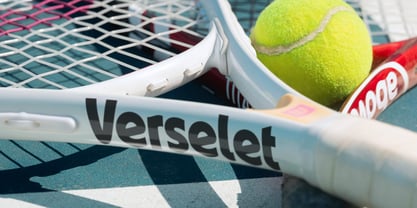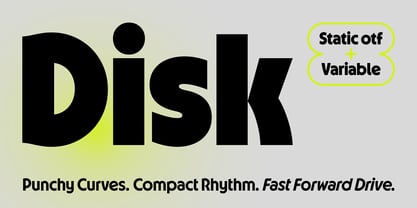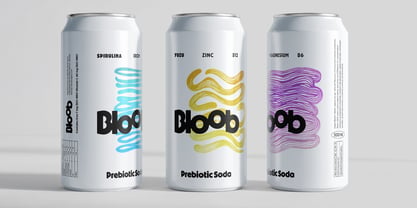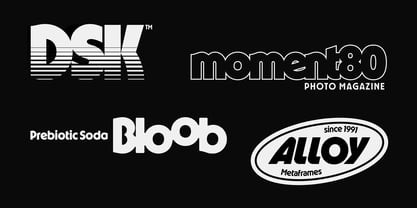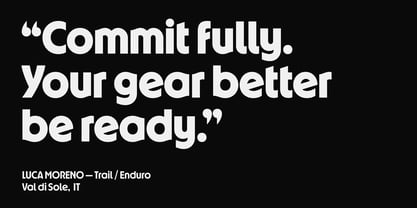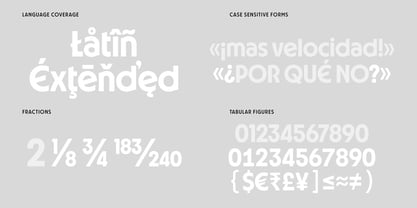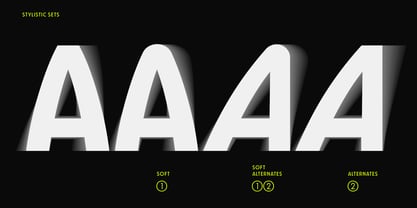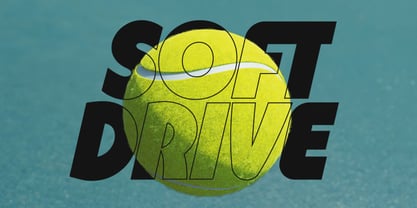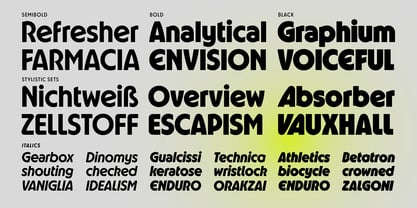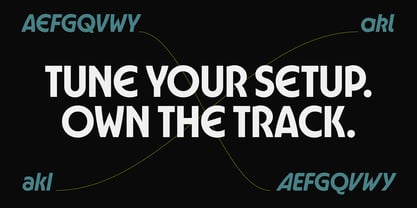
Disk
Die Schriftfamilie Disk wurde von Roland Hörmann entworfen und von phospho veröffentlicht. Disk enthält 7 Stile und Familienpaketoptionen.
Disk is a geometric sans-serif with a distinct display character. Wide proportions, tight spacing, a large x-height, and even stroke weight create dense, stable word shapes with strong visual presence — ideal for headlines, branding, and applications requiring typographic density and visual momentum. Curved diagonals and optional soft corners give the typeface a sporty, 80s/90s-tech-inflected tone, with echoes of the pop and brand culture of the early digital era.
Disk is extended by the pared-down subfamily Disk Format, which shares the same geometric foundation in a more restrained, text-oriented design.
Located in a central district of Vienna, Austria, Roland Hörmann runs phospho; a studio that specializes in both graphic and type design. “I am always excited about graphic design jobs where I can bring in my lettering skills as a type designer,” Roland says. “My fascination for type undoubtedly came from my father’s Letraset catalogues, which I loved tracing letters in as a kid.” In the early Nineties, long before he had decided to study graphic design, Roland began to dabble in type design and created a handful of experimental pixel fonts on the Commodore 64. It wasn’t until 2007, though, that he made his first serious attempts at type design, and in the following year, he published his first typeface, Adhesive Nr. Seven. Since then, he’s seen great success with standout designs like Luxus Brut, a timeless design that breathes the spirit of hand lettered signage of the 1950’s, and Gloss Drop, a wild, hand-lettered typeface that pulses with the spontaneous vibrancy of brush lettering. Roland works alongside Felix Auer, an associated designer who had a hand in creating phospho’s all-caps, display font Aquus. The secret to Roland Hörmann’s success may be his passion project Stadtschrift: an association for the collection, preservation and documentation of historic façade signs. “We save unique signs from being scrapped and put them on display in the public again. So there is a big love for ancient shop signage and their typefaces, and the inspiration I draw from the heritage of the city makes phospho a heartfelt Viennese foundry.”